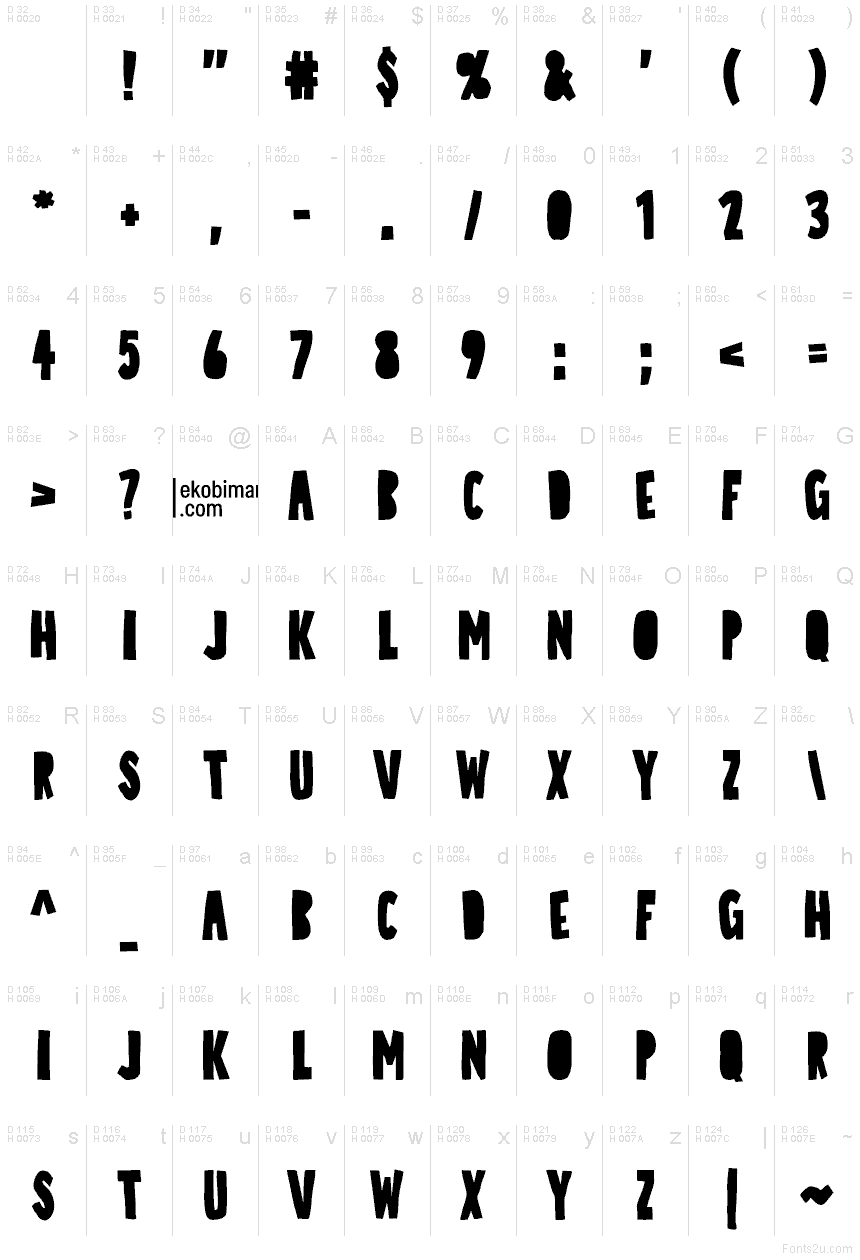
Quick Trick
Quick Trick font by Eko Bimantara is a bold, condensed display font with cartoon style inspiration. The uneven texture in this piece of design results in a rugged and distressed appearance that adds to its modern vintage feel. With each letter of the alphabet, it brings a strong presence to the pages on which they are featured.